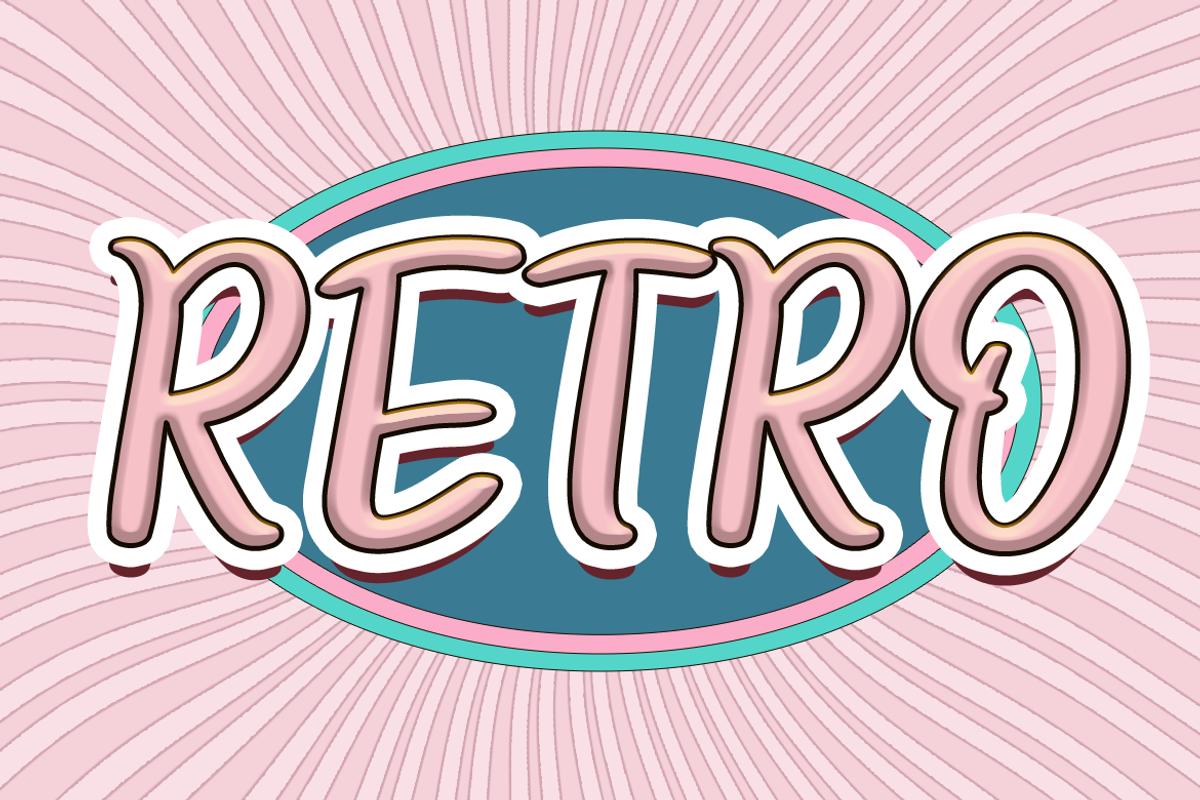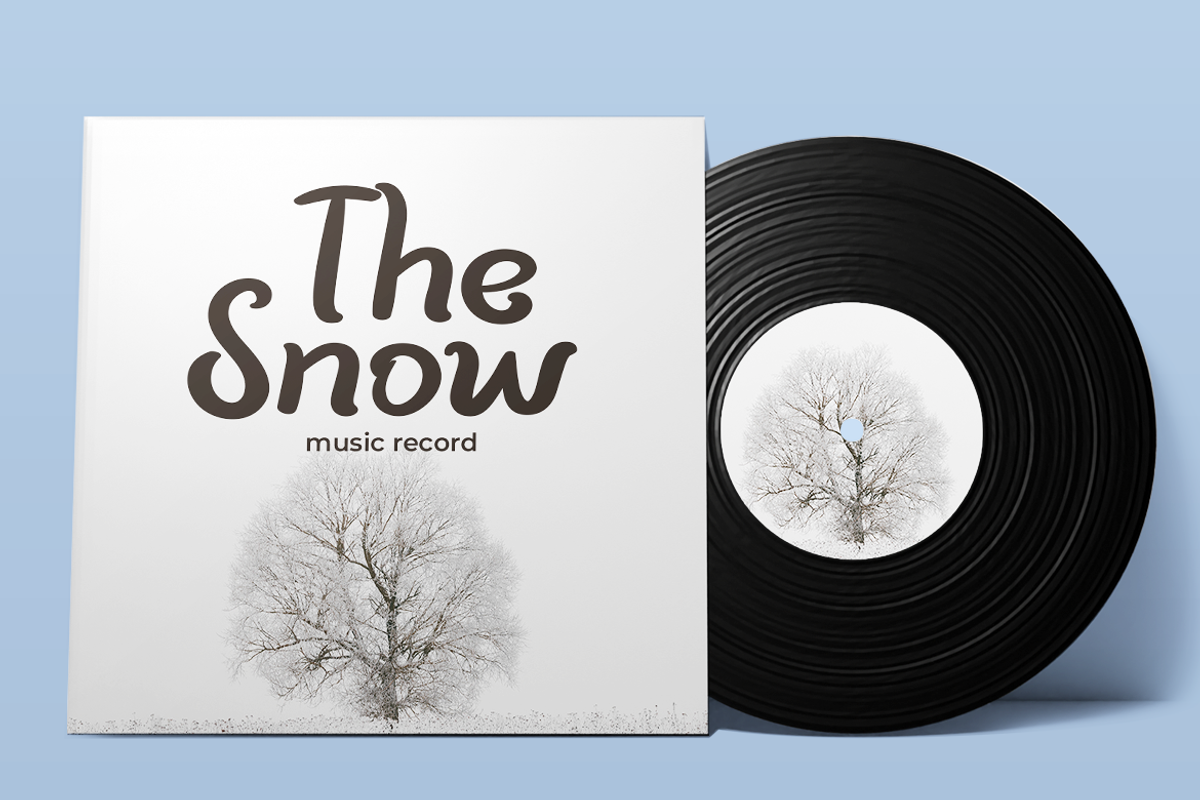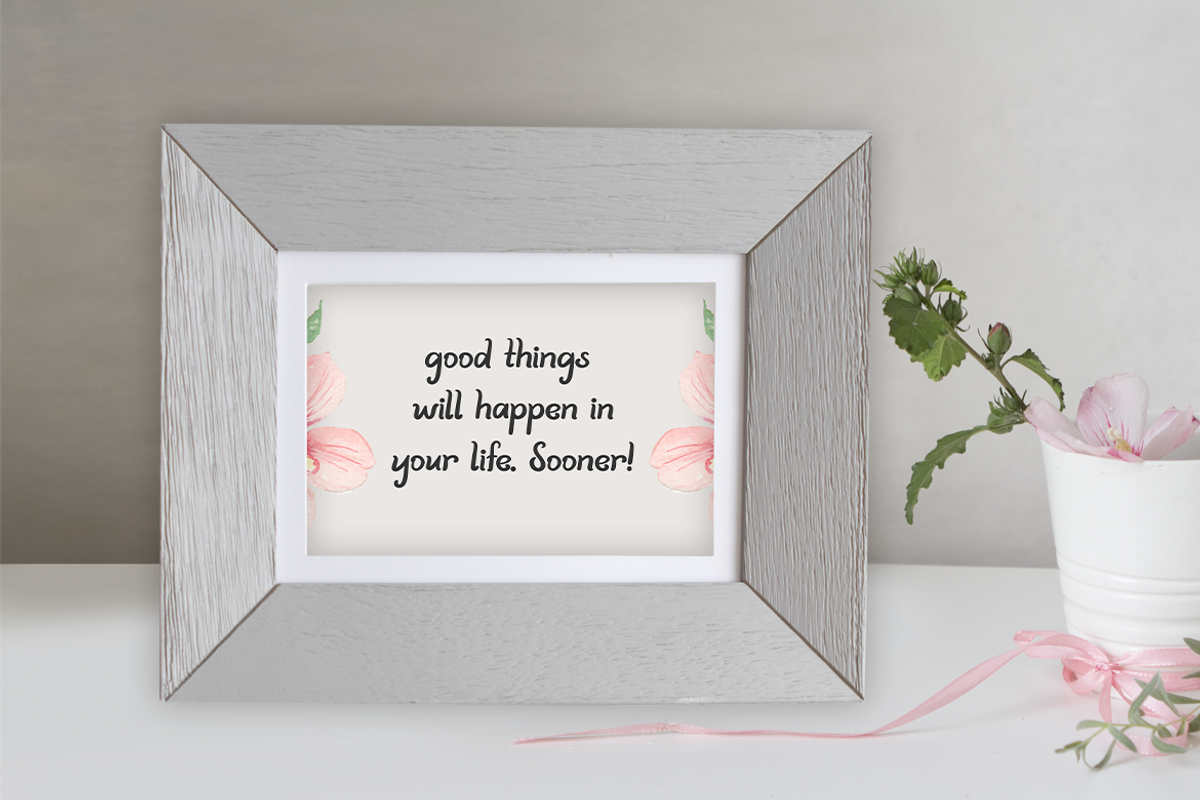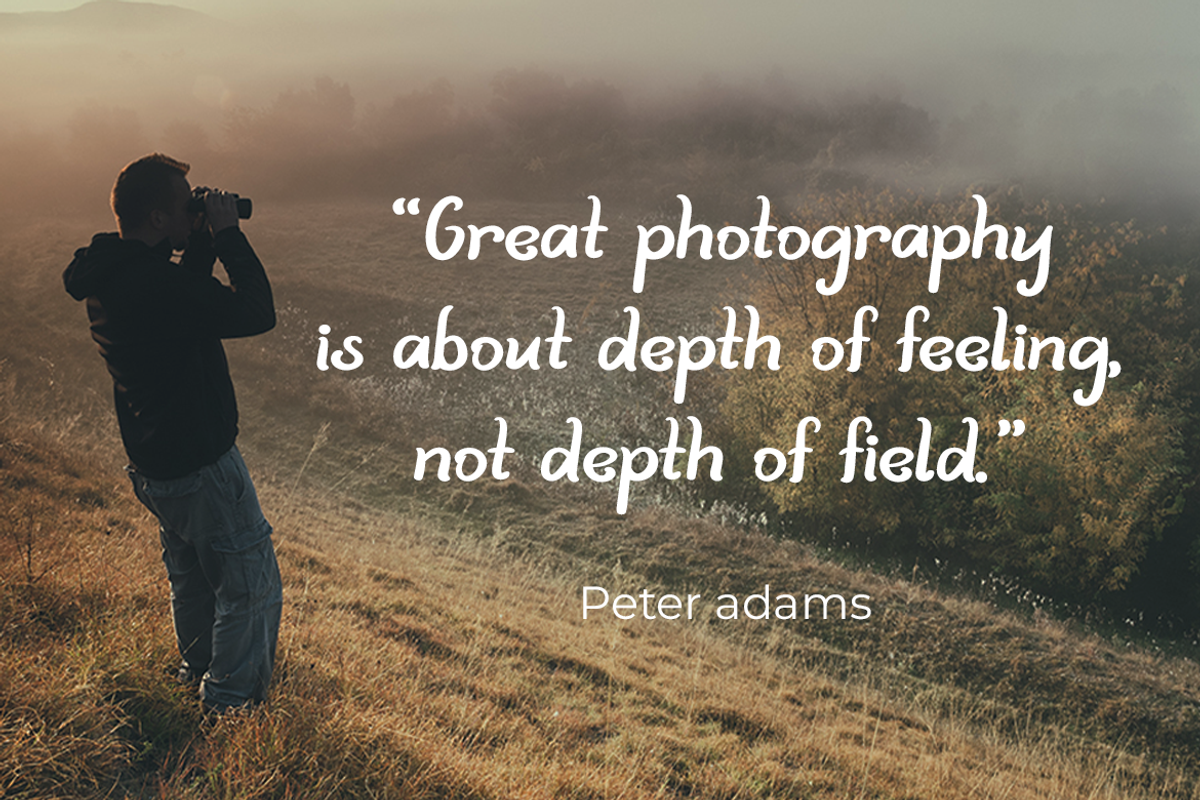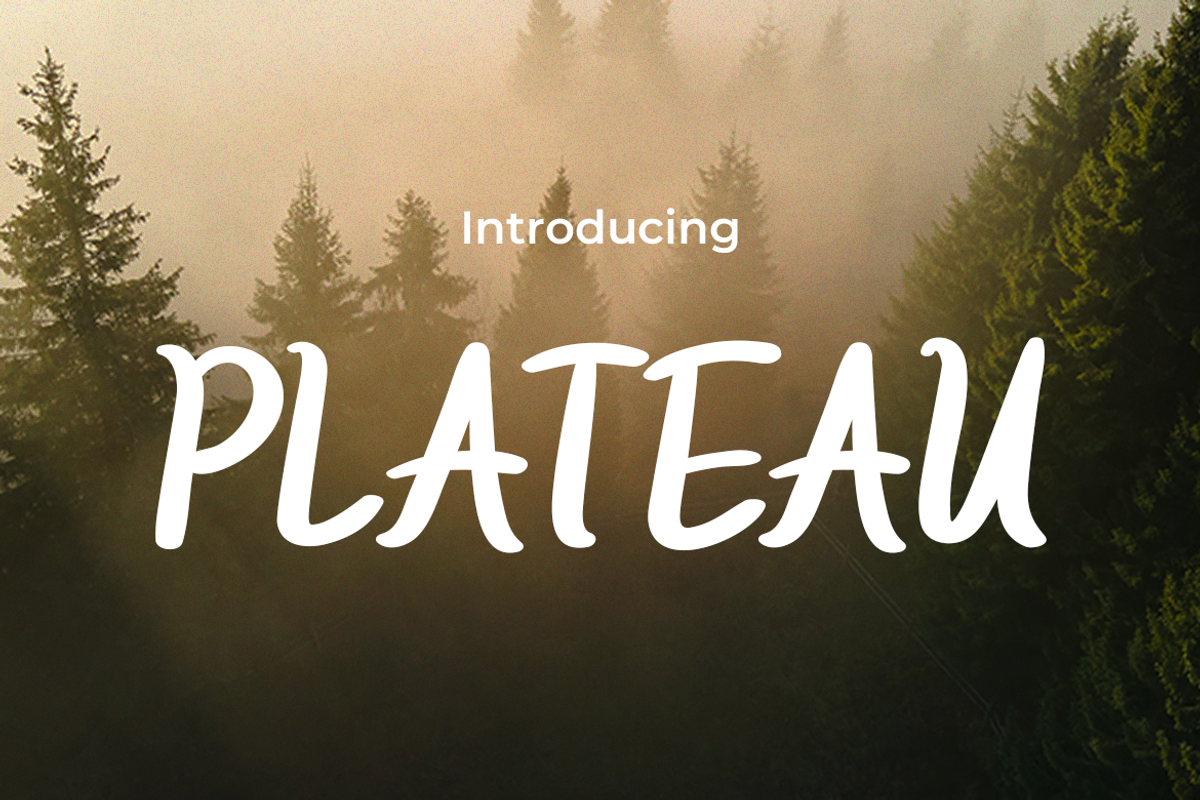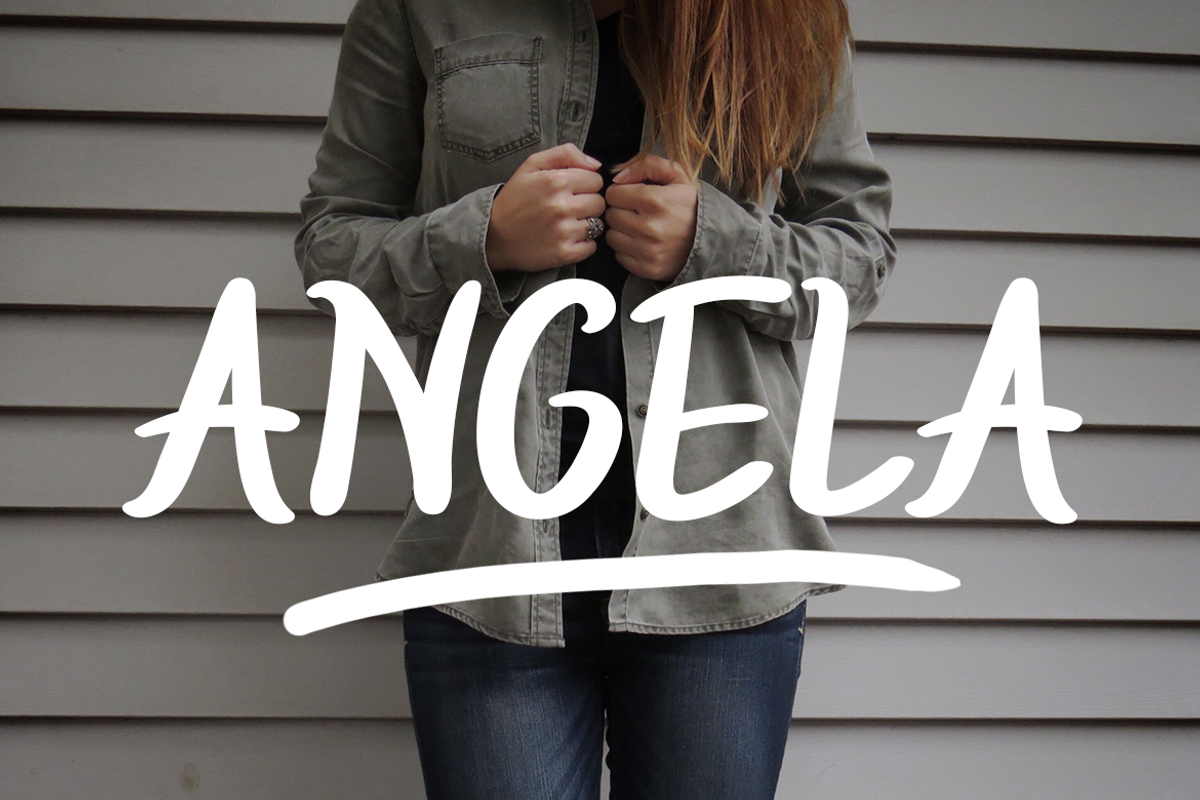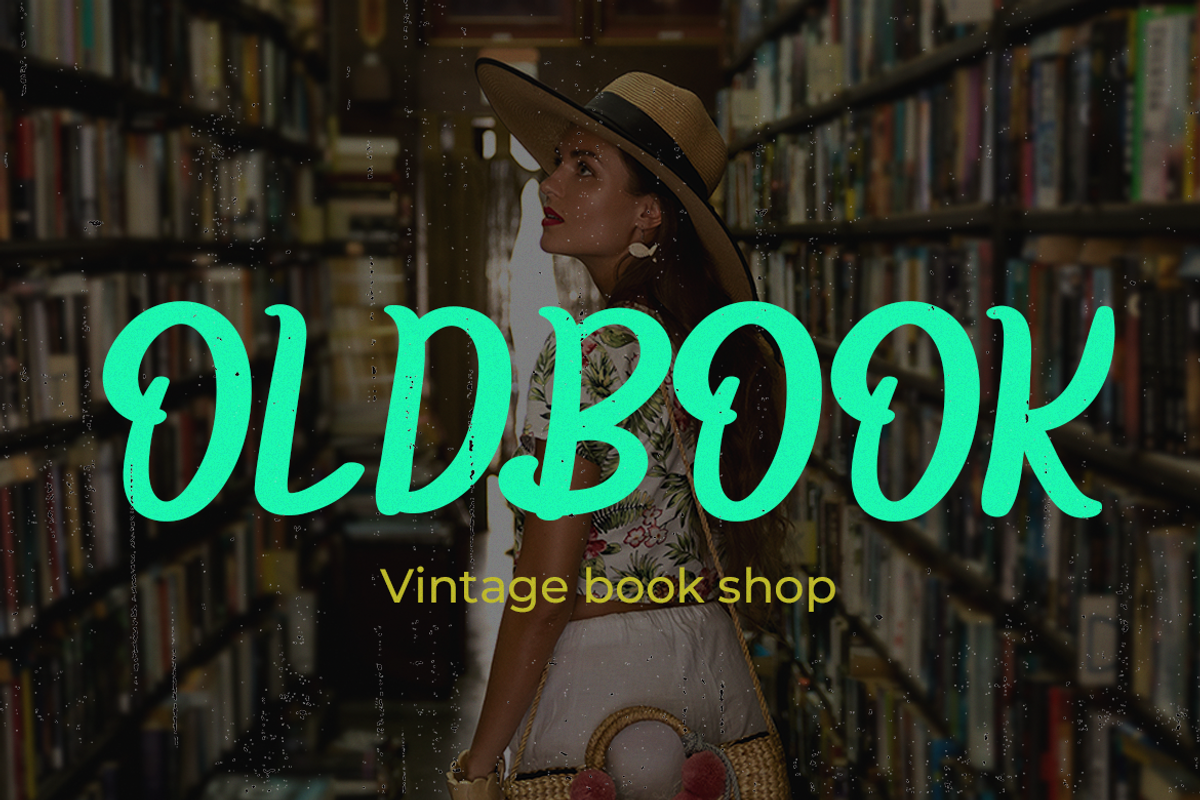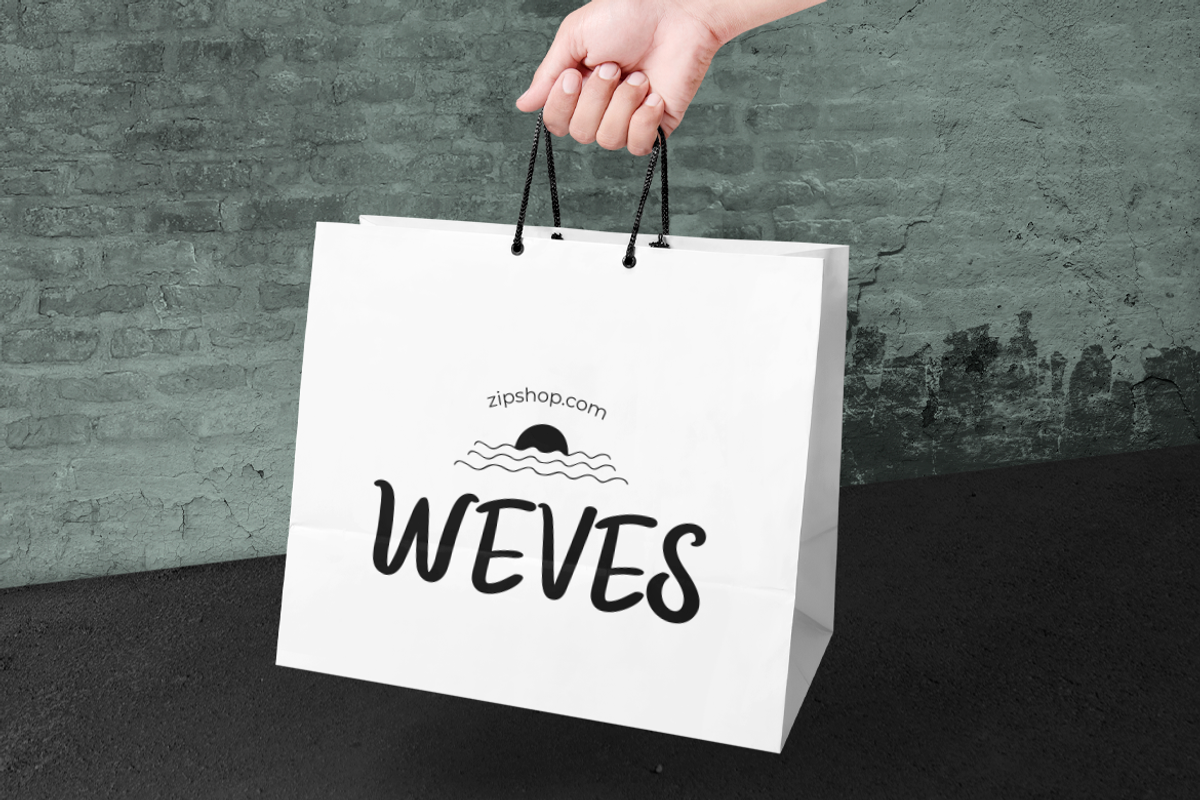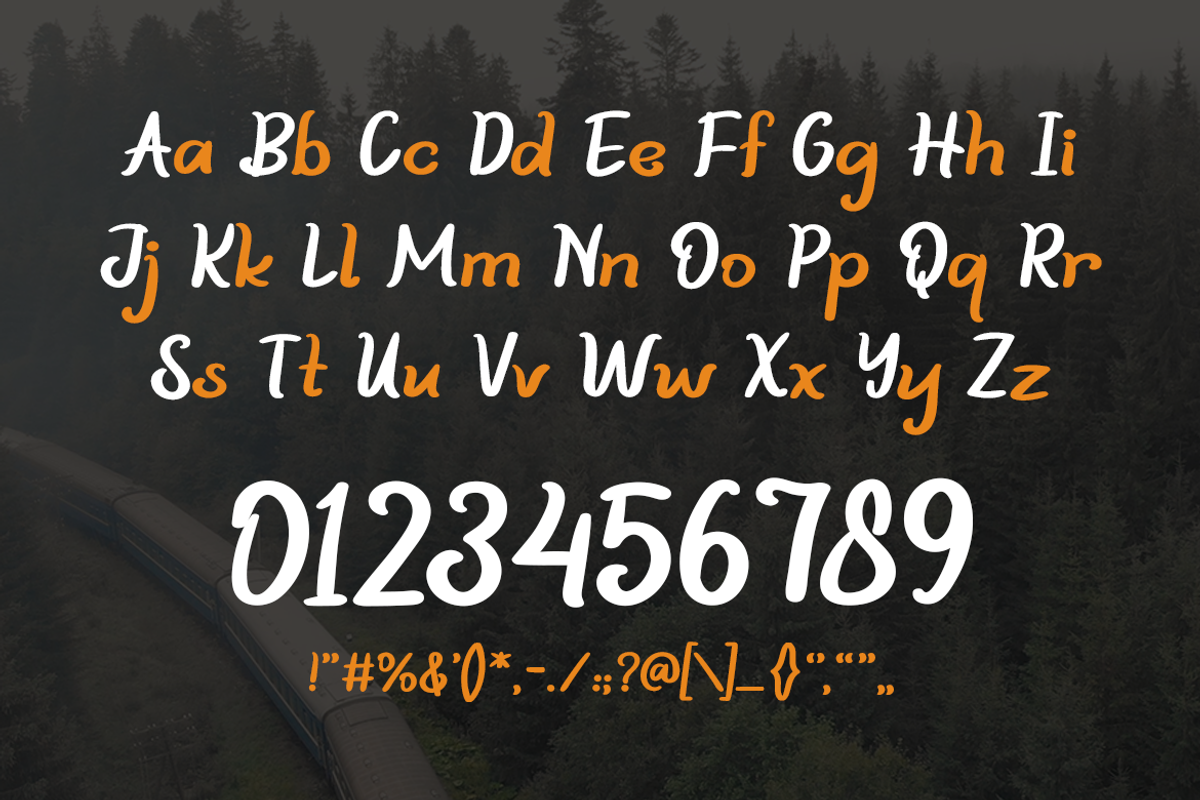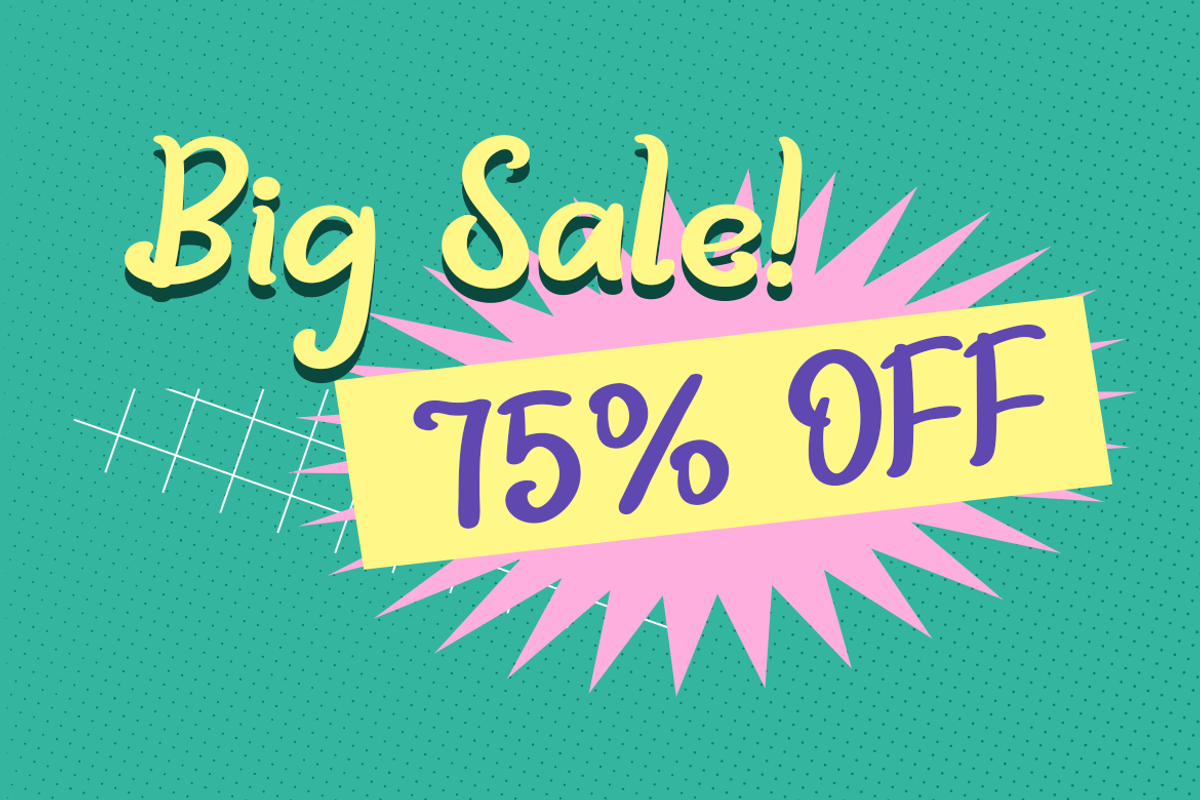
PLATEAU
PLATEAU – Retro-Chic Font for Fashion Forward Designs
With “PLATEAU,” stepping back into the retro era has never felt more stylish. This font brings a fresh touch of vintage with a timeless flair that remains relevant in today’s fashion world. Each letter embodies the luxury and elegance characteristic of the past while offering flexibility for contemporary designs. “PLATEAU” is the perfect choice for those seeking to create unique and classy looks without sacrificing modern appeal.